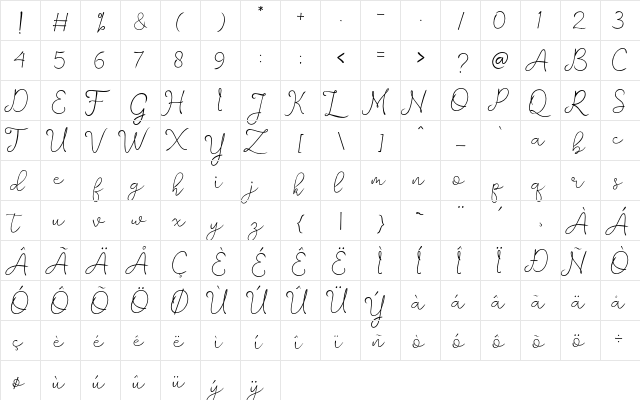
romantisch personal use Regular Font Preview
romantisch personal use Regular
romantisch personal use Regular Font Details
| Foundry | Uloel Design |
| Designer | Ulul Fahmi |
Design Context for romantisch personal use Typeface
romantisch personal use is a composed and adaptable typeface that performs quietly and consistently across a wide range of design contexts.
Pro Tip: Use romantisch personal use in both headline and body roles to test its range before committing to a single application.